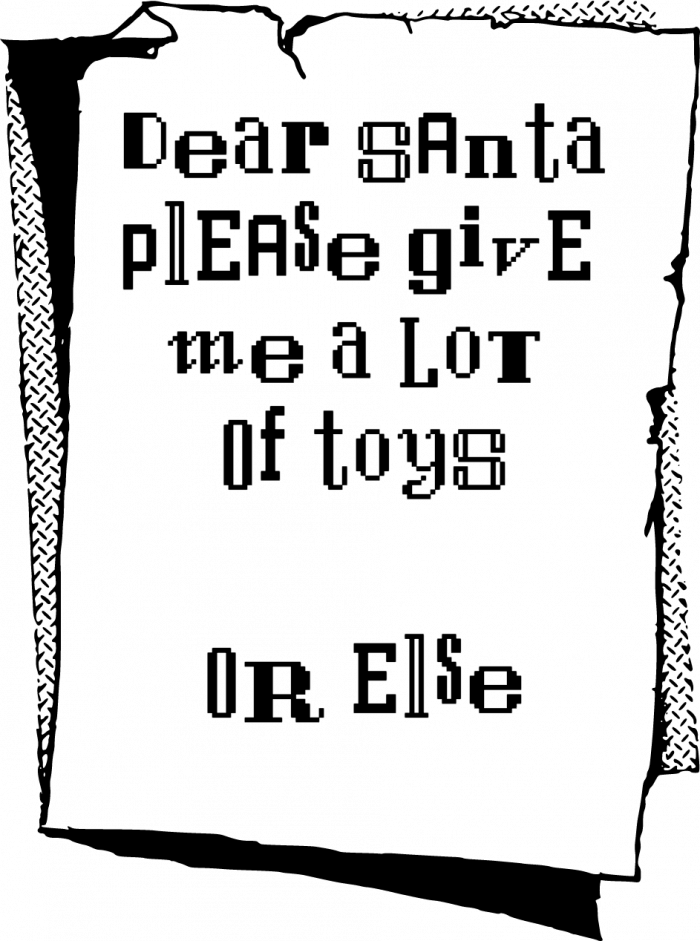
It's not intimidating enough, lettering is not psychopathic enough, and if you intent to scare dem max toyz outta Santa's big red bag never address him with 'dear Santa' cuz now he'd be thinking ur just another sweet lil' kiddo.. ehehe
Oh, those early fascinating years when we were so young! Great recreation, @riccard0.
@riccard0 - Always nice to see these early computer fonts recreated.  :^)